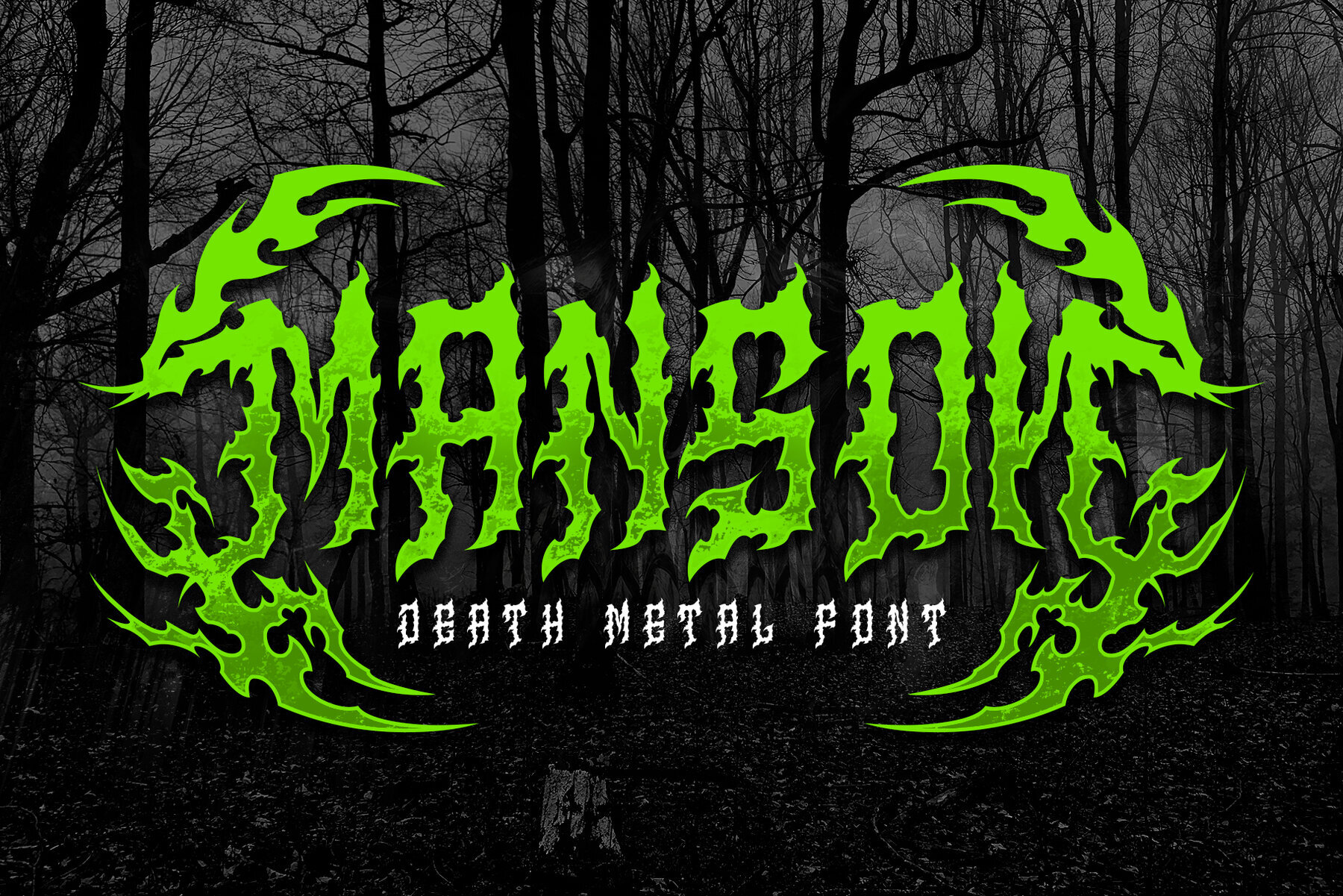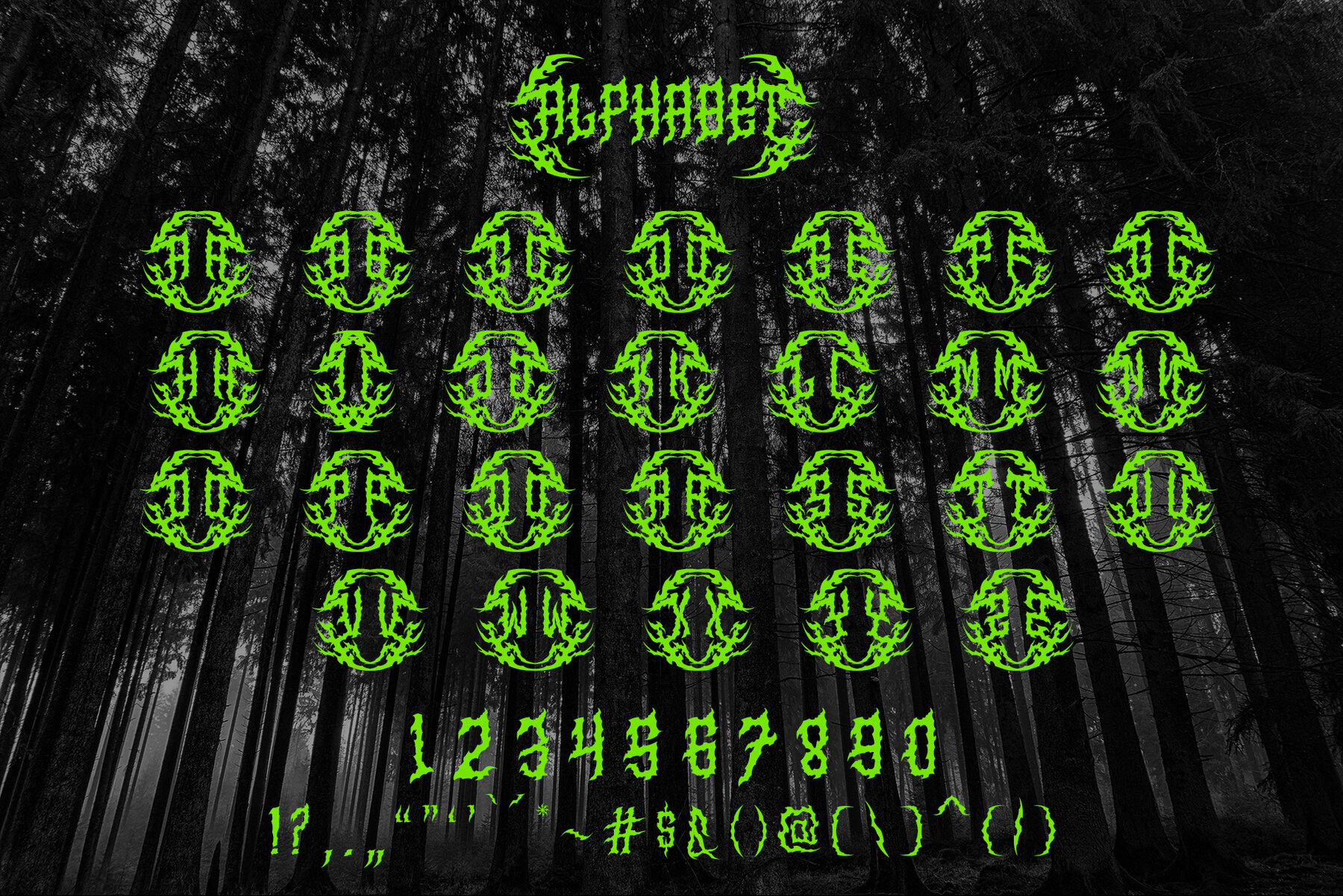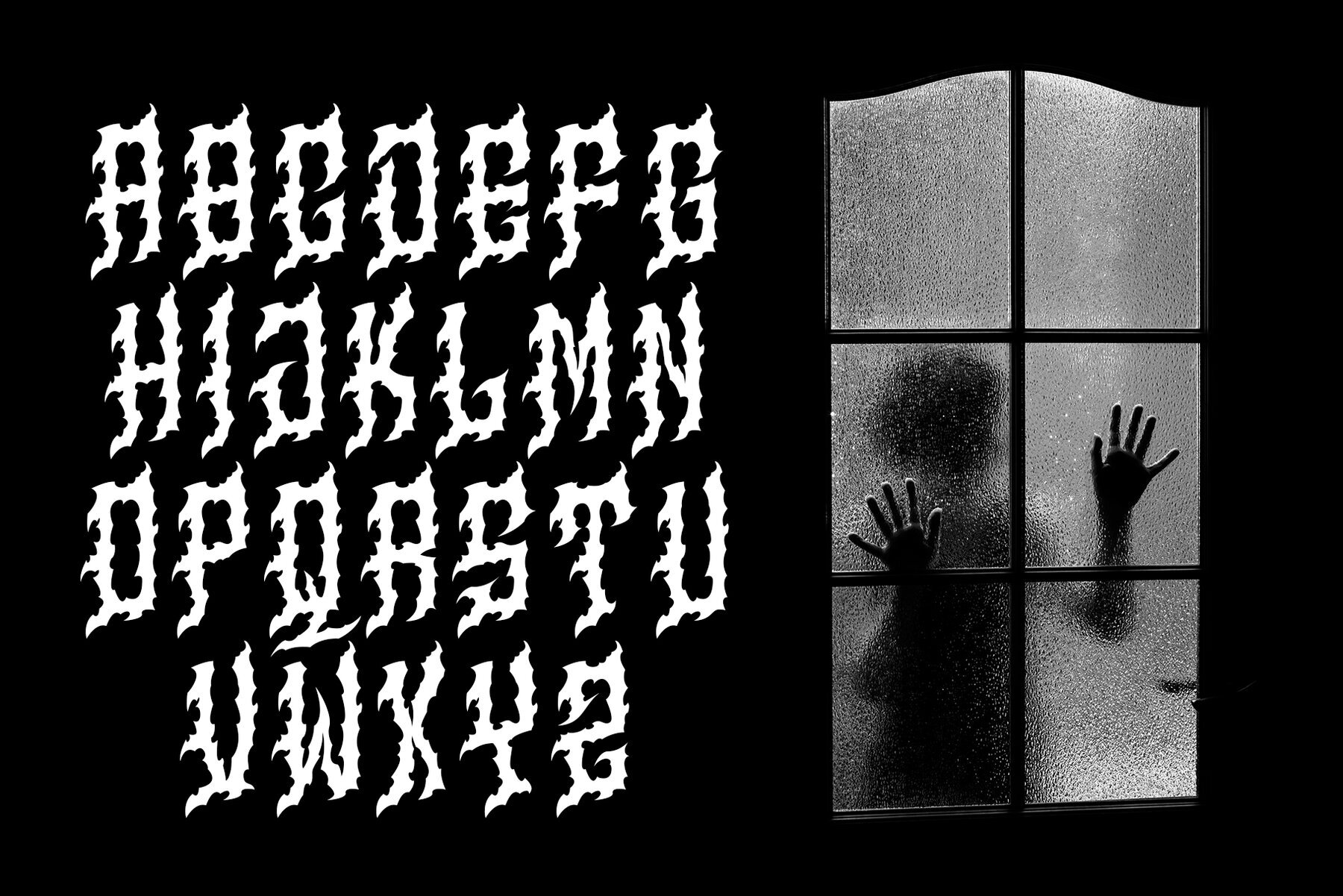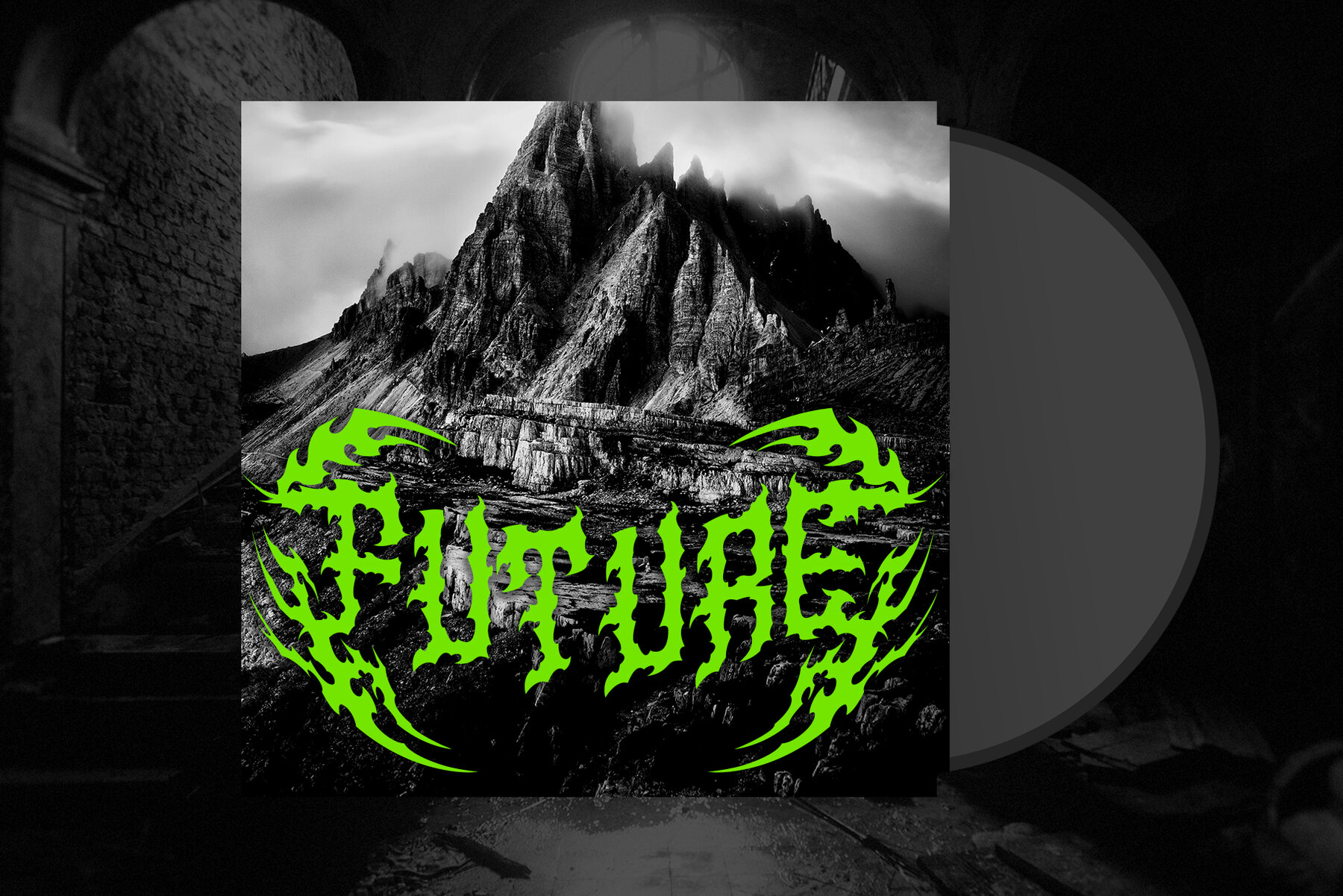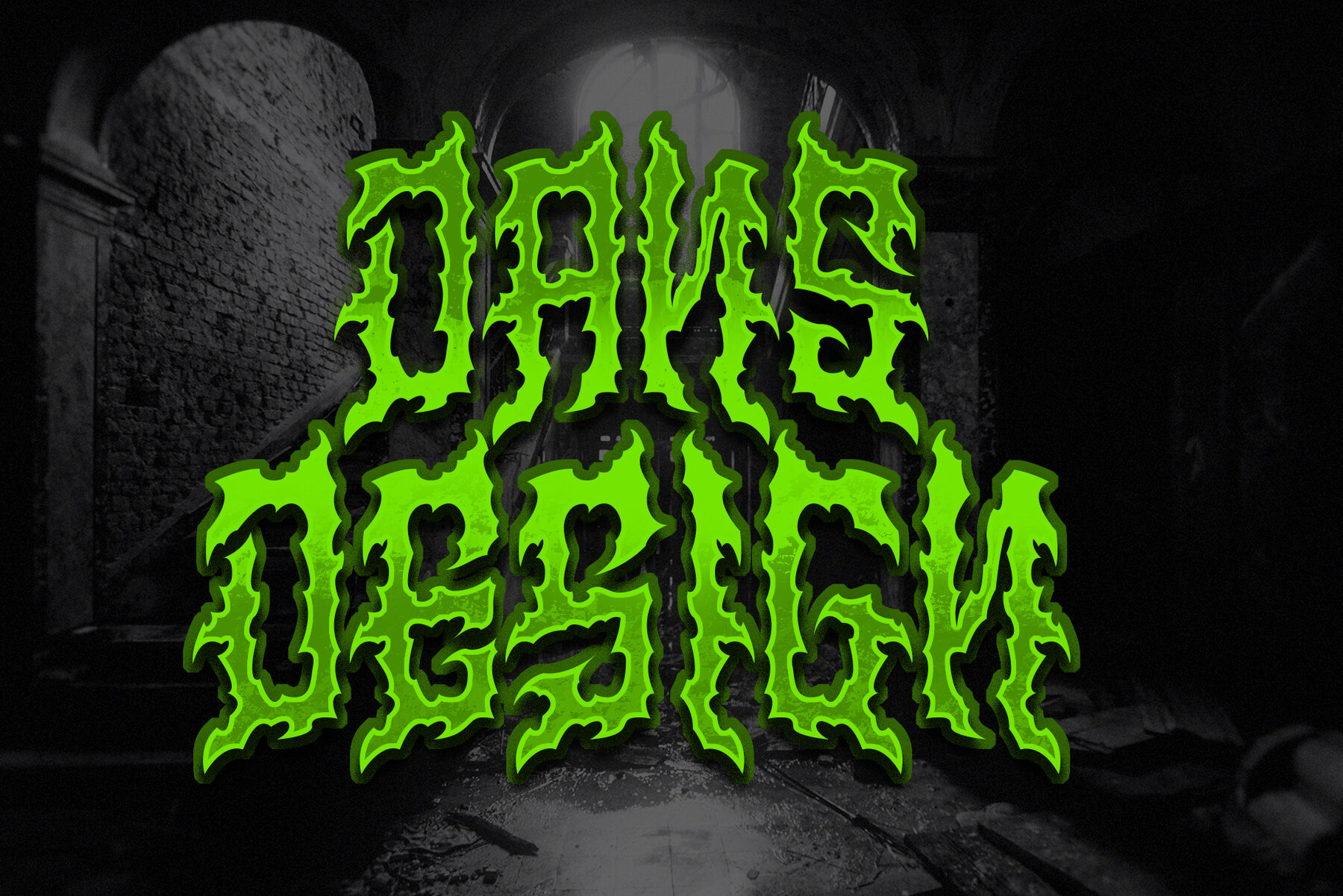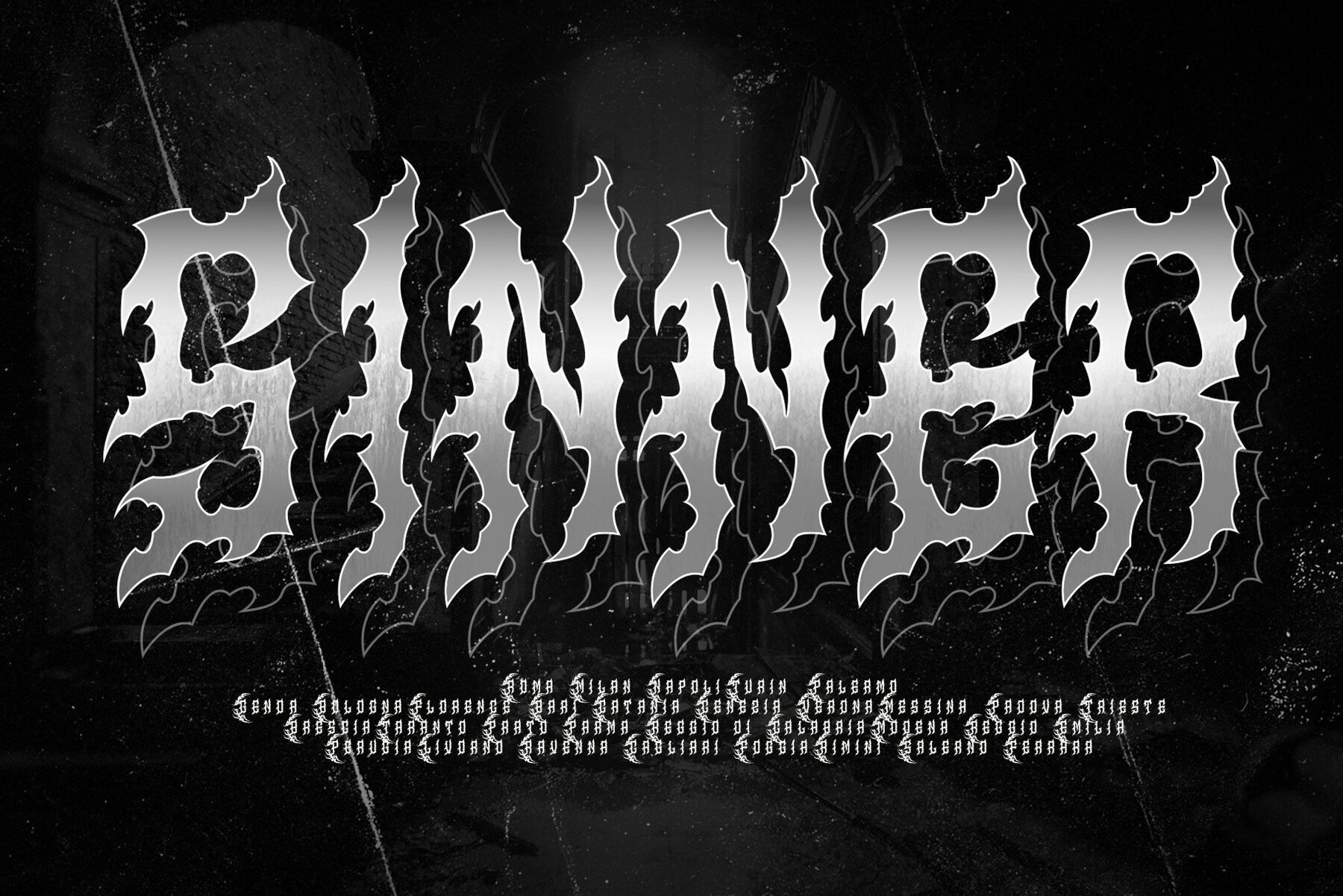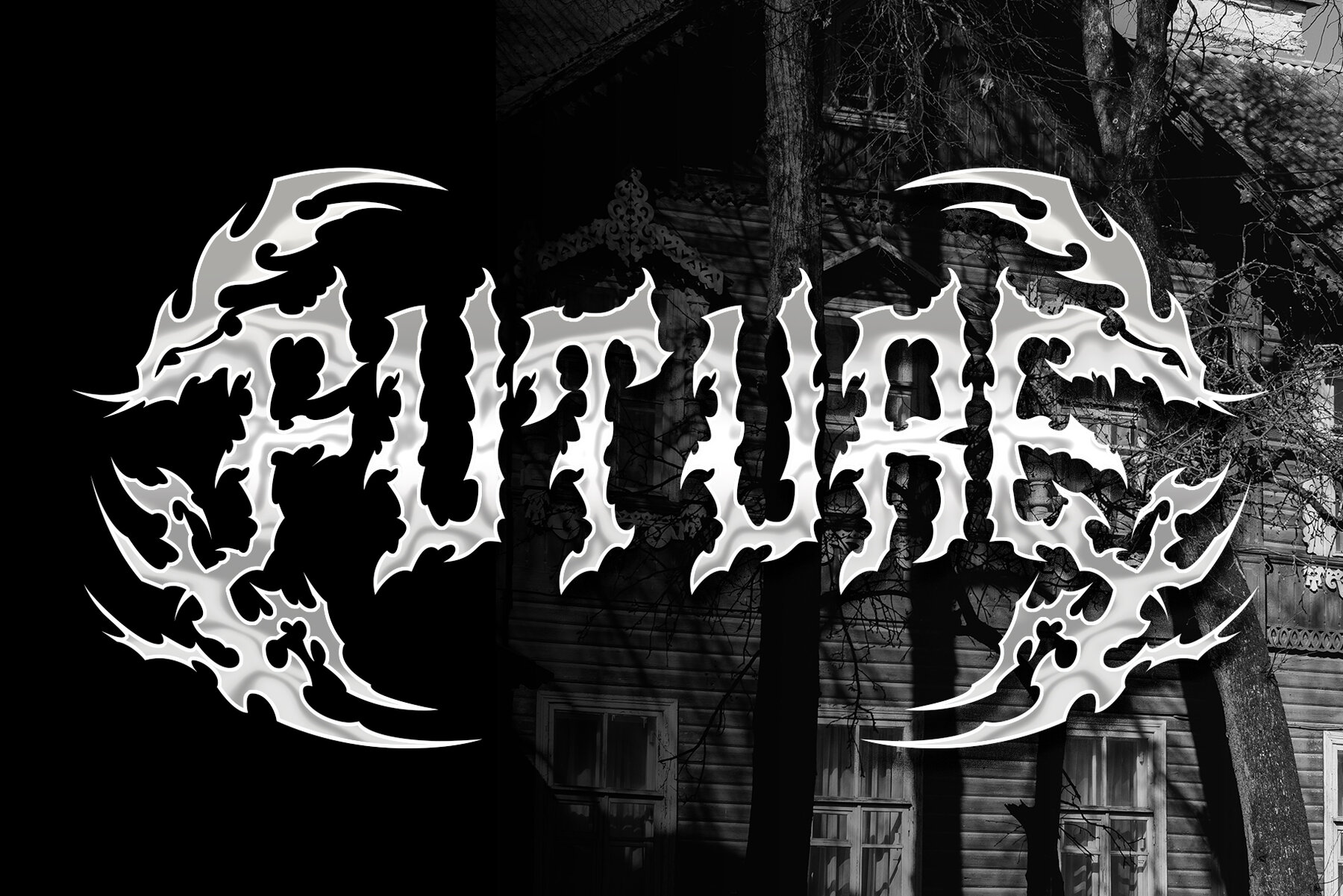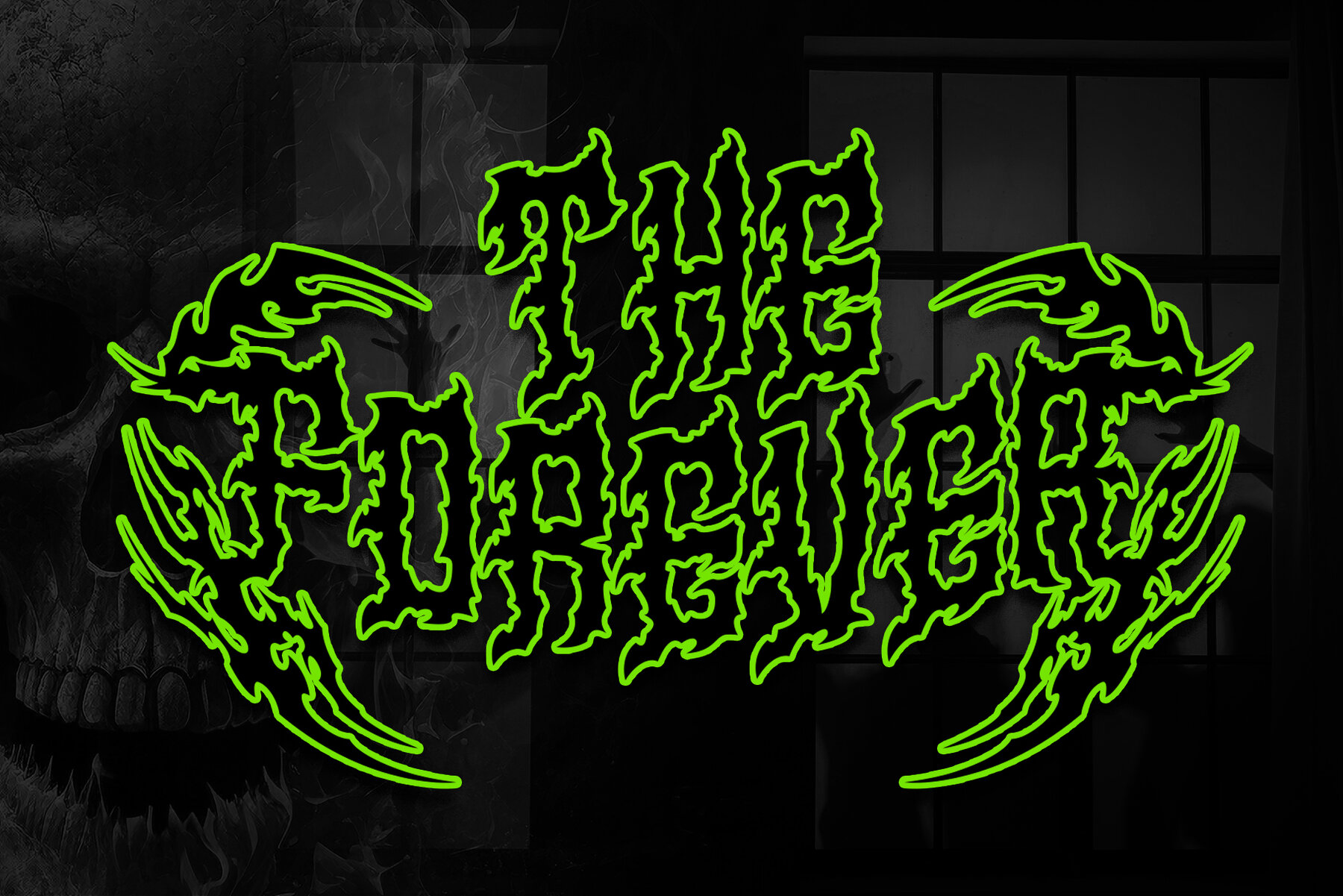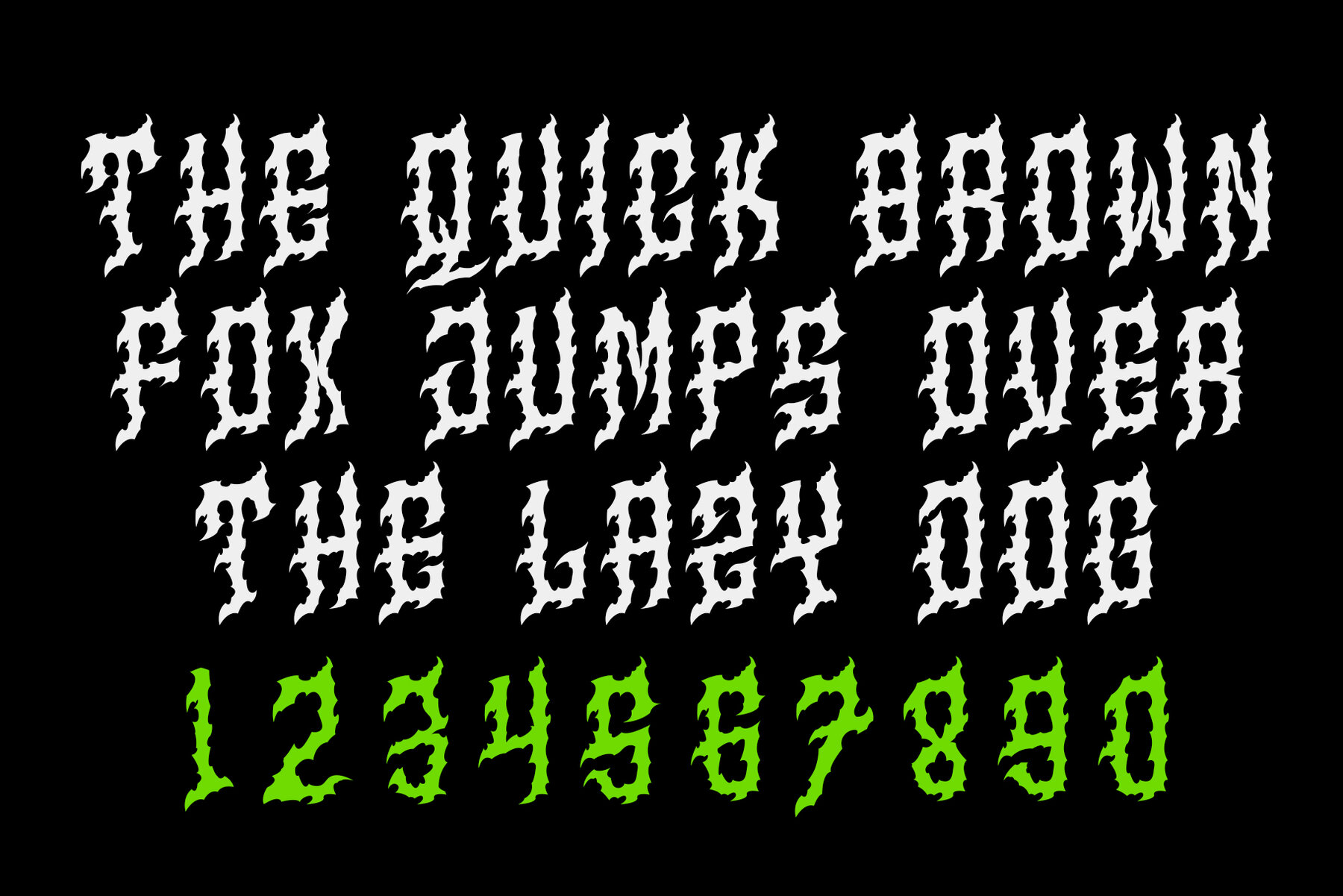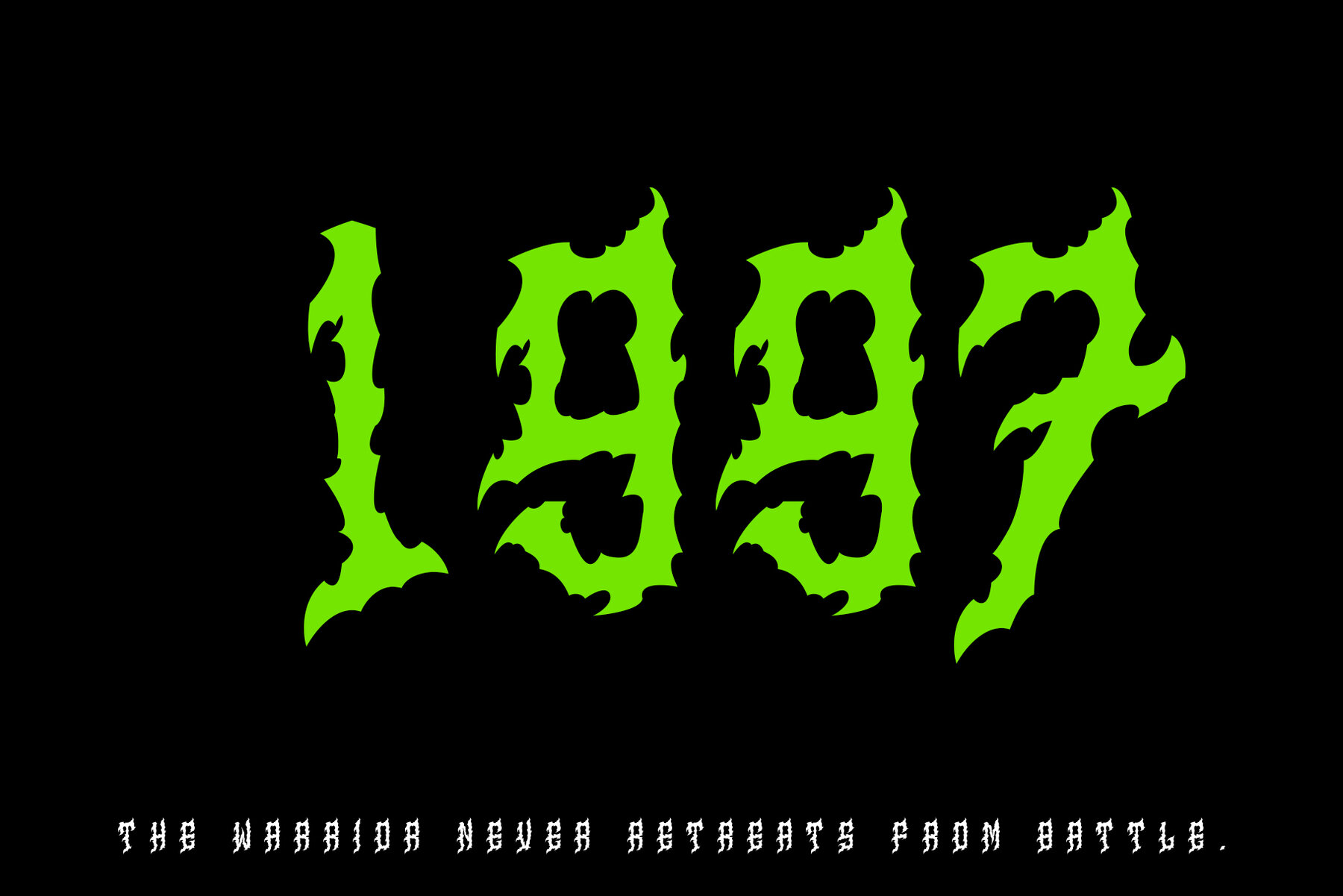
Manson
Manson is a striking modern blackletter display typeface blending the elegance of classic Old English with the power of heavy-metal and horror themes. With its sharp terminals, dramatic vertical stress, and ornamental spikes, Manson commands attention in high-energy projects. Ideal for metal band logos, album covers, gig posters, horror movie posters, tattoo branding, apparel, editorial headlines, and retro-gothic packaging, it offers a bold and distinct identity.Manson: A Fierce Modern Blackletter Typeface
Versatile and Dramatic